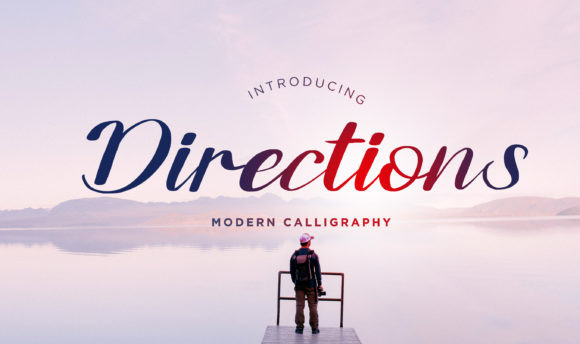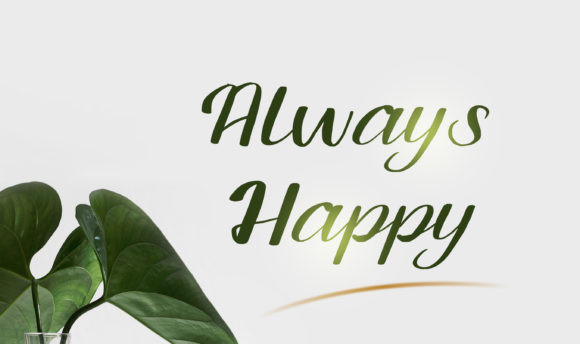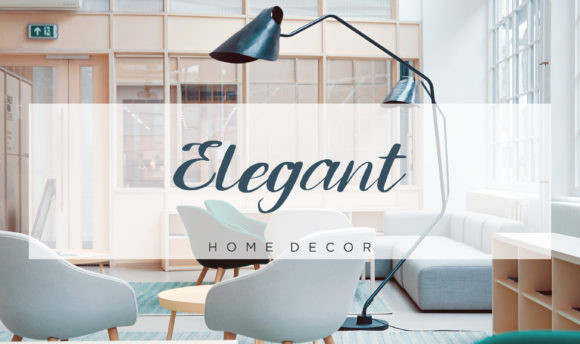
Directions Font
Directions FontDirections is a beautiful, cursive handwritten font. It can be used for various purposes such as logos, wedding invitations, headings, t-shirts, letterhead, signage, labels, news, posters, badges and so much more.